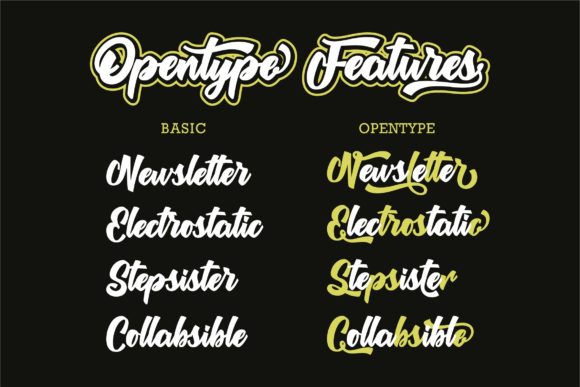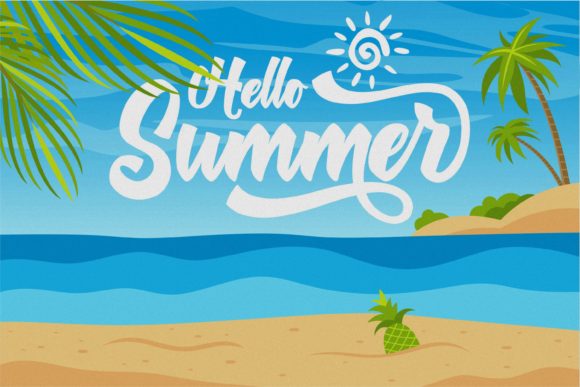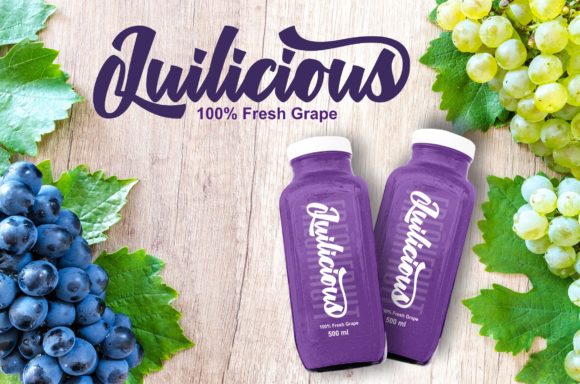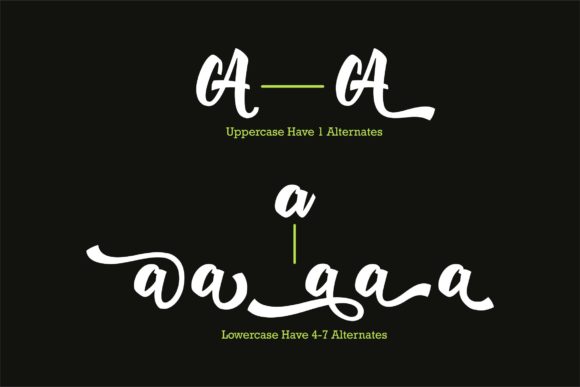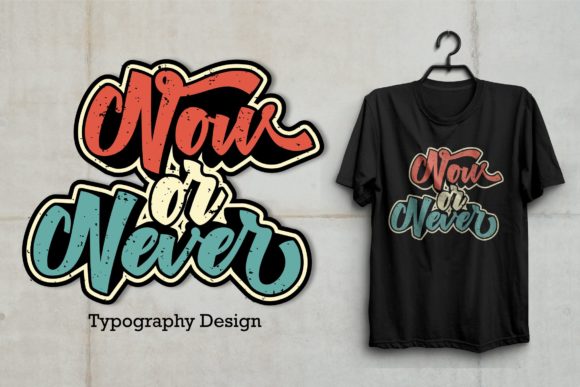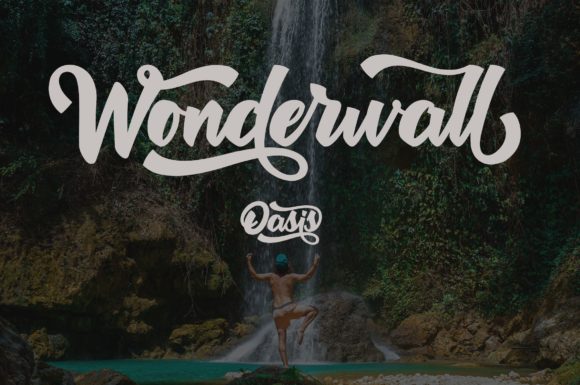
Introduction to Rolyta Font
Have you ever stared at a blank canvas, feeling the creative juices flowing, but struggling to find the perfect font to bring your vision to life? That’s where Rolyta Font comes in – a bold script font that’s guaranteed to add a touch of elegance and sophistication to your next creative project.
As a designer, you know how crucial it is to have access to high-quality design resources like Rolyta Font. With its numerous alternative uppercase and lowercase glyphs, plus some ligature options, you’ll never run out of creative possibilities. Whether you’re working on a free download project or a commercial design, Rolyta Font is the perfect addition to your design arsenal.
Key Features of Rolyta Font
- Rolyta Font is a high-quality design resource ideal for creative projects, offering a unique and stylish look.
Honest Review: Rolyta Font
As a designer, I’m always on the lookout for high-quality fonts that can elevate my creative projects. Recently, I had the chance to try out the Rolyta Font, and I’m excited to share my honest review with you.
What works well: ✨ The Rolyta Font is a beautiful, elegant script font that’s perfect for adding a touch of sophistication to your designs. It’s also incredibly versatile, making it suitable for a wide range of creative projects, from wedding invitations to business logos. One of the standout features of this font is its transparent background, which makes it easy to work with and ensures a seamless integration with your design elements.
What doesn’t work well: ⚠️ While the Rolyta Font is a high-quality design resource, I did find that it’s not suitable for bold, attention-grabbing headlines. The font’s elegant nature makes it better suited for more subtle, nuanced designs.
- High-quality, elegant script font
- Perfect for creative projects, such as wedding invitations and business logos
Overall impression: The Rolyta Font is a fantastic addition to any designer’s toolkit. While it may not be suitable for every project, its elegant nature and transparent background make it a valuable resource for designers looking to add a touch of sophistication to their designs.
Tips for Getting the Most Out of Rolyta Font
Use the Rolyta Font in conjunction with other design resources, such as graphics and illustrations, to create a high-quality design. Experiment with different font sizes, colors, and styles to add visual interest to your design. Consider using the font with a transparent background to create a sense of depth and dimensionality.
The Rolyta Font is a versatile design resource that can be used in a variety of creative projects, including logos, business cards, brochures, and social media graphics. Its high-quality design and transparent background make it an ideal choice for designers who want to create professional-looking designs with ease.